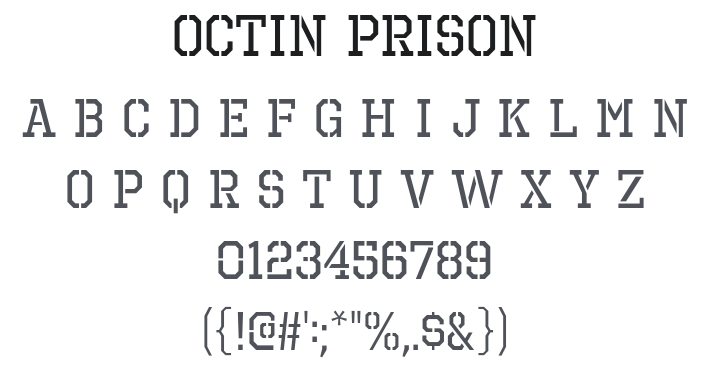
Octin Prison Font
About Octin Prison
Octin Prison brings industrial strength and authority to typography with squared forms and a disciplined, utilitarian rhythm. Spanning seven weights from light to black, it balances clarity and toughness, from subtle captions to bold, commanding headlines. Designed for sports, military, construction, or law enforcement themes, it projects raw confidence without losing readability. Supporting Latin-based European languages and part of the larger Octin family, Octin Prison delivers a cohesive, hard-edged voice built for projects that demand endurance and power.